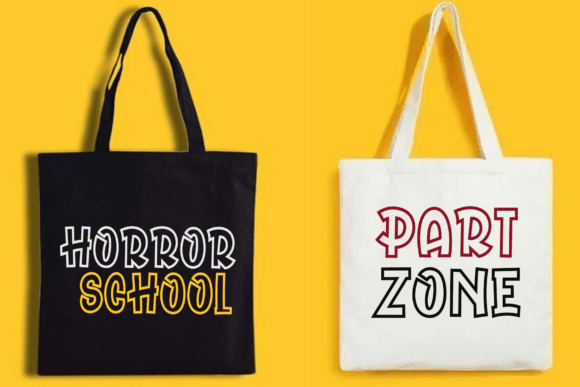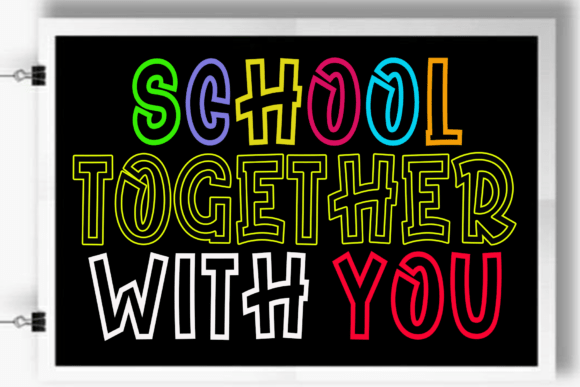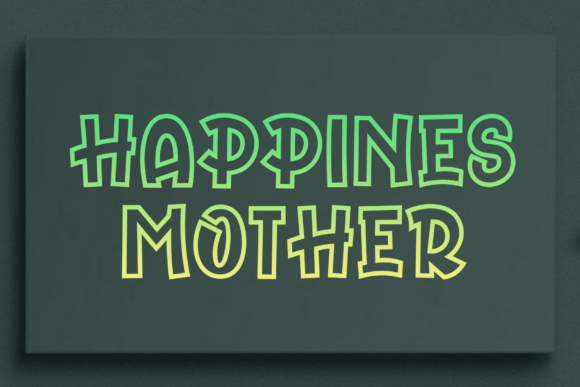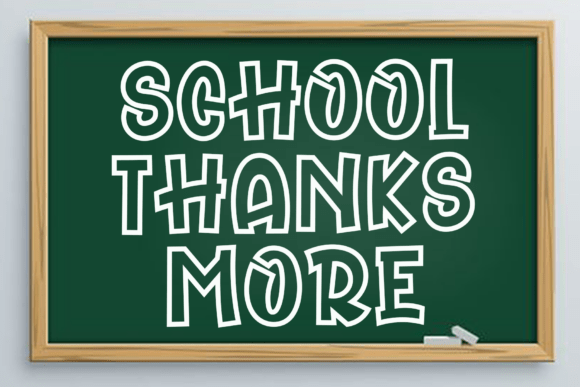
Cute Dream Font: The Perfect Blend of Warmth and Clarity for Your Design Projects
In the world of typography, fonts play a crucial role in conveying the tone and personality of a brand or design. When it comes to creating a lasting impression, the right font can make all the difference. This is where Cute Dream Font comes in – a casual and neat display font designed to bring warmth and clarity to your projects. In this article, we’ll dive into the features and benefits of Cute Dream Font, and explore how it can elevate your branding, headlines, and everyday designs.
A Clean and Approachable Style
Cute Dream Font boasts a clean structure and approachable style, making it perfect for a wide range of design applications. Its balanced letterforms offer readability and charm, ensuring that every message feels genuine and inviting. Whether you’re working on a branding project, creating headlines, or designing everyday materials, Cute Dream Font is the ideal choice for designers and crafters looking for a font that exudes warmth and friendliness.
Key Features of Cute Dream Font
- Clean Structure: Cute Dream Font features a clean and well-structured design, making it easy to read and understand.
- Approachable Style: The font’s approachable style makes it perfect for creating a friendly and inviting tone in your designs.
- Balanced Letterforms: The balanced letterforms ensure that every message feels genuine and clear, making it ideal for branding and headlines.
- Readability: Cute Dream Font offers excellent readability, making it suitable for a wide range of design applications.
- Charm: The font’s charming design adds a touch of personality to your designs, making them stand out from the crowd.
Cute Dream Font is a versatile font that suits a wide range of design applications, including:
- Branding: Use Cute Dream Font to create a consistent and recognizable brand identity that exudes warmth and friendliness.
- Headlines: Add a touch of personality to your headlines with Cute Dream Font, making them stand out and grab attention.
- Everyday Designs: Use Cute Dream Font to add a personal touch to your everyday designs, such as social media graphics, flyers, and brochures.
Why Choose Cute Dream Font?
With so many fonts available, why choose Cute Dream Font? Here are just a few reasons:
- Unique Personality: Cute Dream Font has a unique personality that sets it apart from other fonts, making your designs stand out.
- Easy to Read: The font’s clean structure and balanced letterforms ensure that your message is easy to read and understand.
- Versatile: Cute Dream Font is versatile and can be used in a wide range of design applications, from branding to everyday designs.
- High-Quality: Cute Dream Font is a high-quality font designed to deliver exceptional results in your designs.